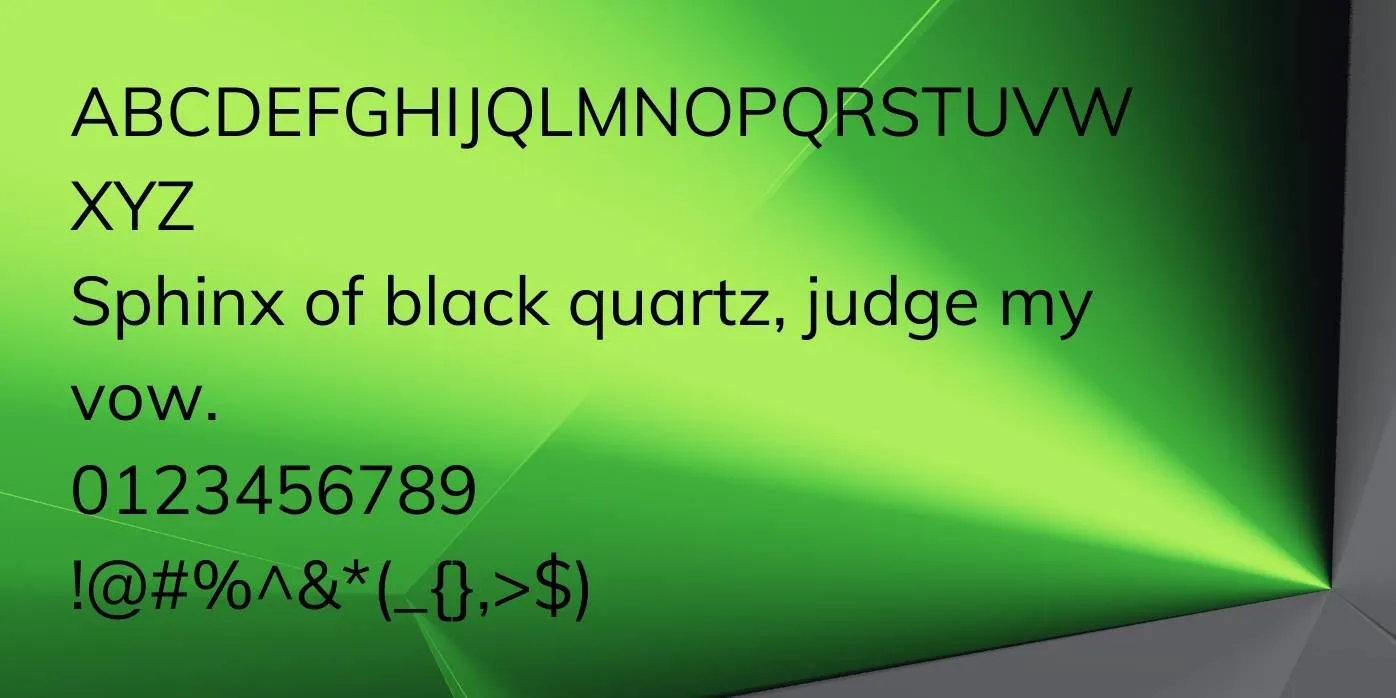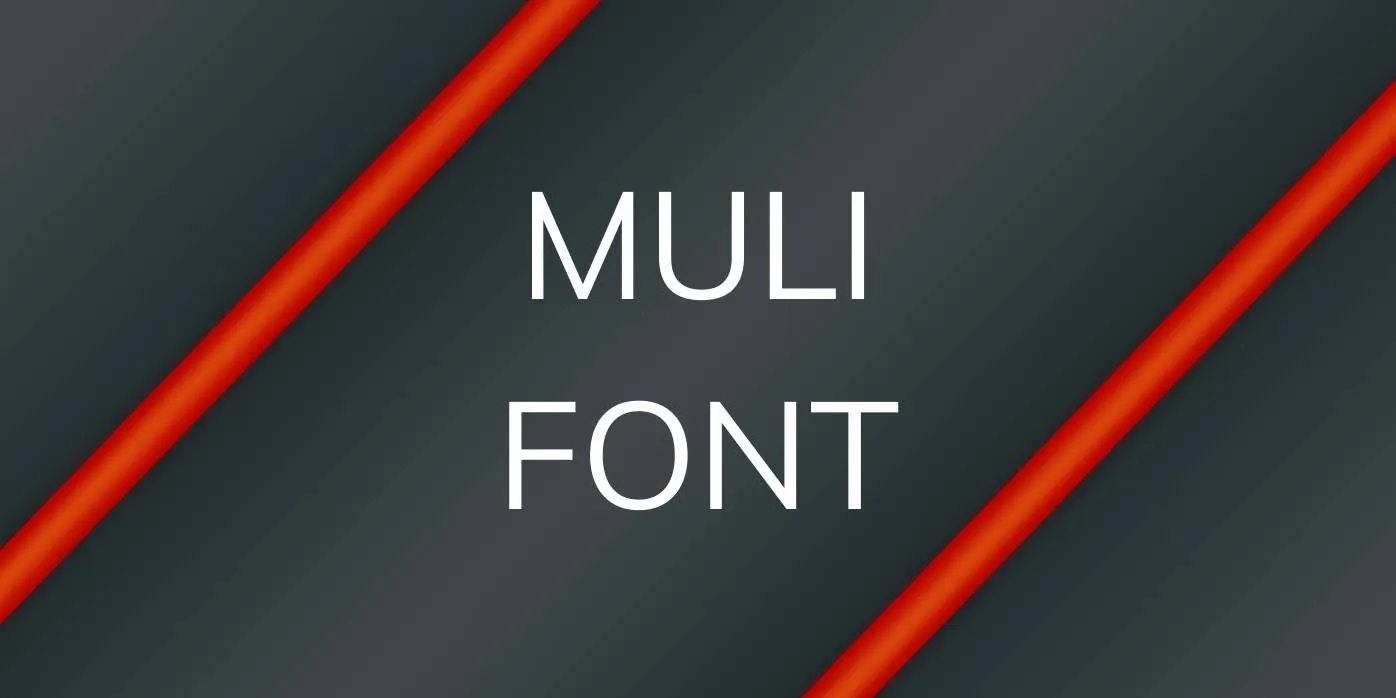
Muli Font
Muli font is the most professional geometric typeface that belongs to a sans serif typeface family. The designer of this typeface family is Vernon Adams. It is Adobe original font and has a TTF feature. This TrueType Outlines font has very beautiful geometrical characters containing Uppercase and Lowercase, Letters, Numbers, and Numerals, and mandatory symbols also.
This geometrical shape typeface is very great for both screen and display projects. The font family supports many international languages. It is very great for creating many designs in CSS (Cascading Style Sheet) and many other applications. You may generate this typeface through the generator tool even without downloading.